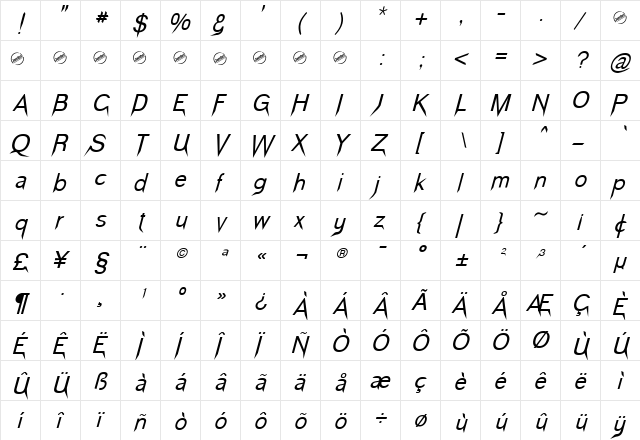
Vampetica Italic
| Foundry | Jambo! |
| Designer | Jambo! |
Design Context for Vampetica Typeface
Vampetica offers clean, dependable letterforms without strong stylistic allegiance, making it a practical choice for designers who need flexibility. Its italic angle brings a sense of urgency and motion to the letterforms.
Pro Tip: Use Vampetica for emphasis, pull quotes, and subheadings where its slanted energy can add rhythm to the layout.